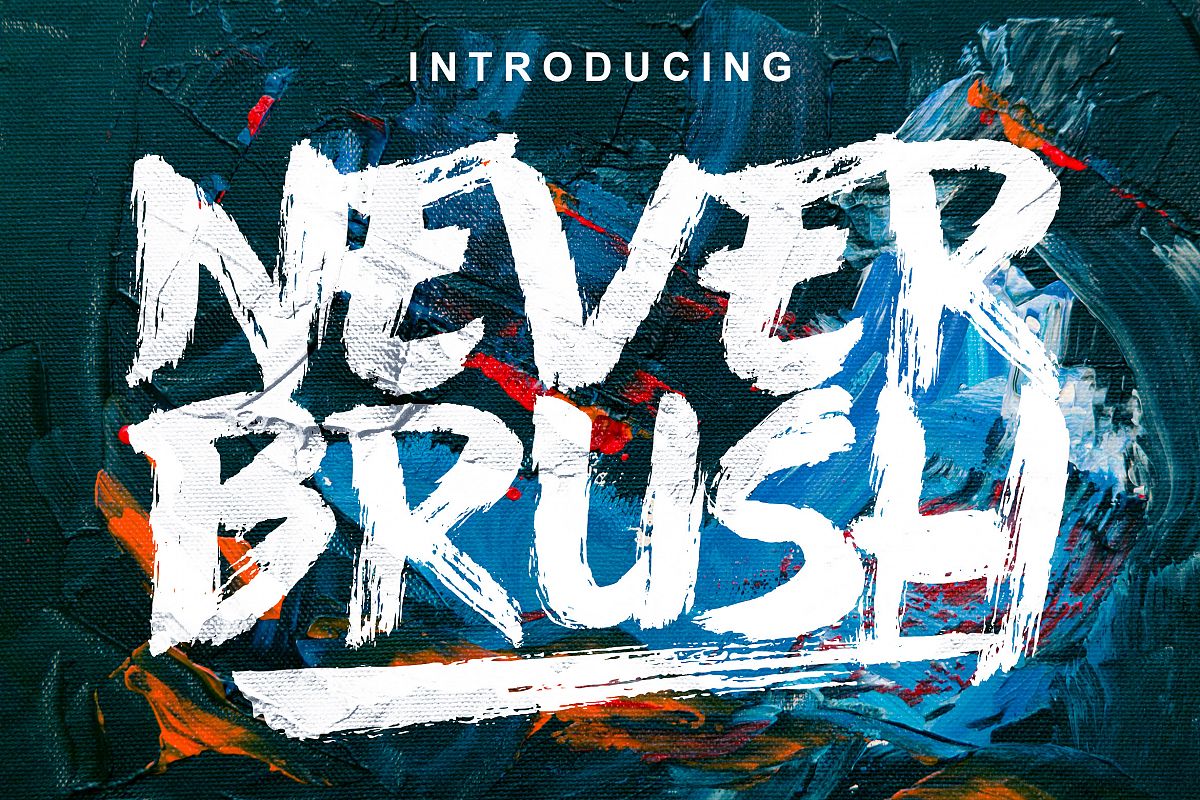
Never Brush - Handwritten Font
Never Brush is Natural Dry Brush Font. This font is perfect for logo, quote, poster, playful lettering, for clothing, or any design projects.